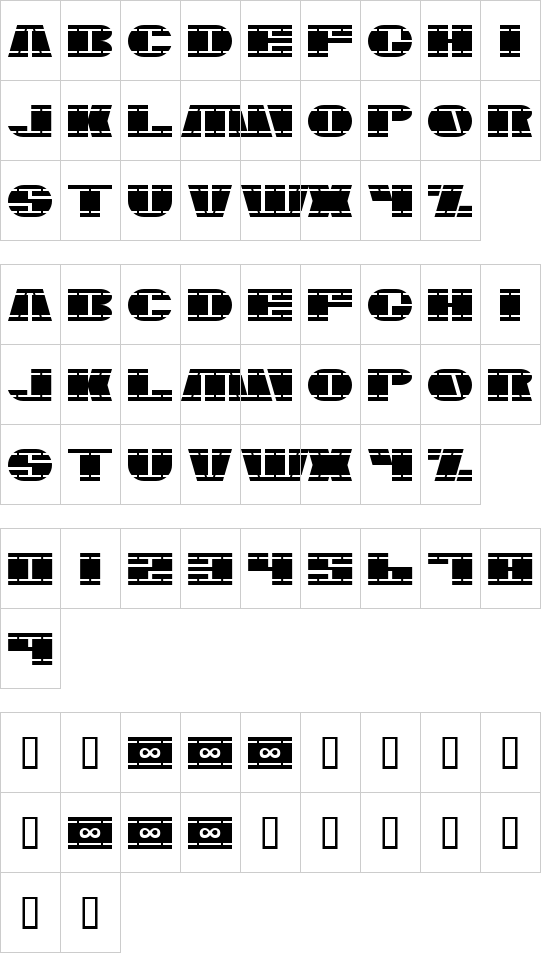
Nasser is a distinctive display font with bold, stylized letterforms and a confident character. The strokes are strong and deliberate, with subtle styling that gives the alphabet a memorable, self-assured look. It carries presence without clutter.
Use Nasser for brand logos, poster headlines, packaging design, and striking social media graphics. It also suits product names and cover titles. Nasser is free to download as a TrueType file, and you can preview it with your own text to see how the bold letterforms set across your wording.